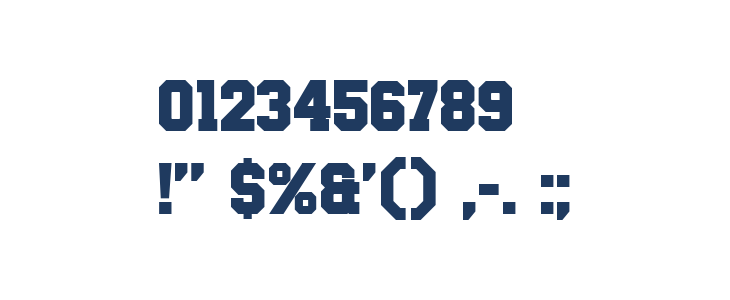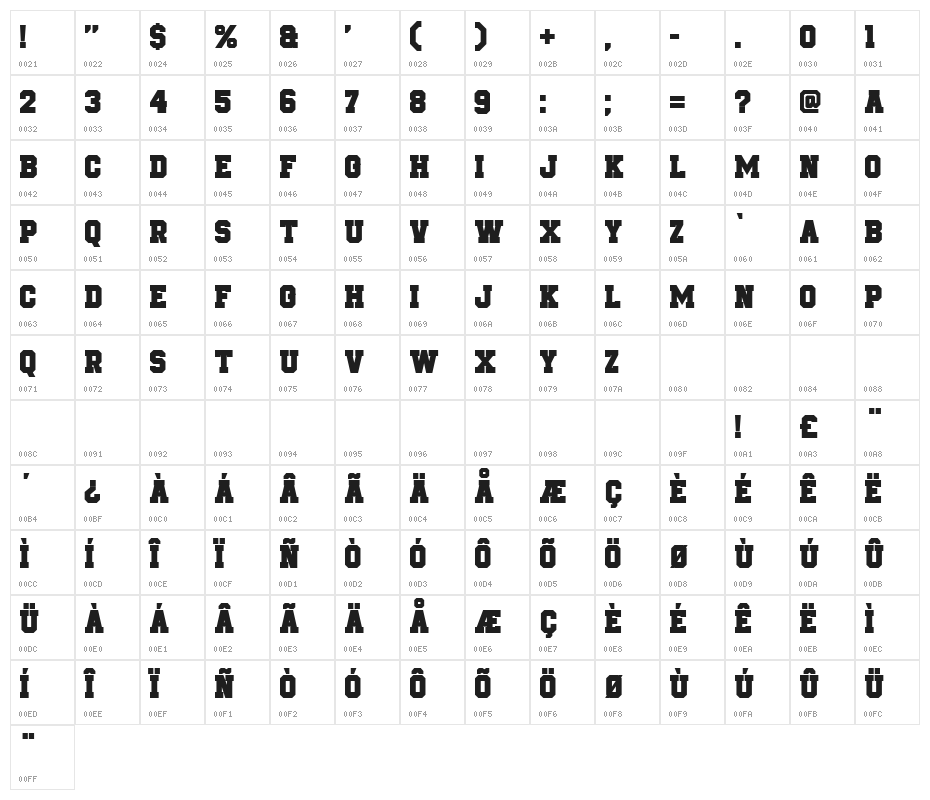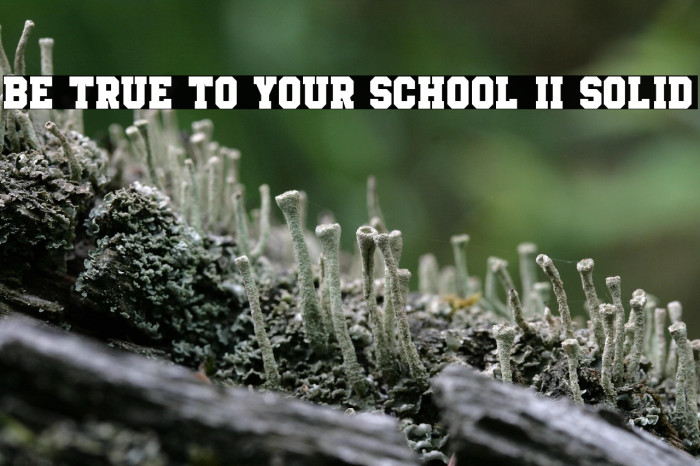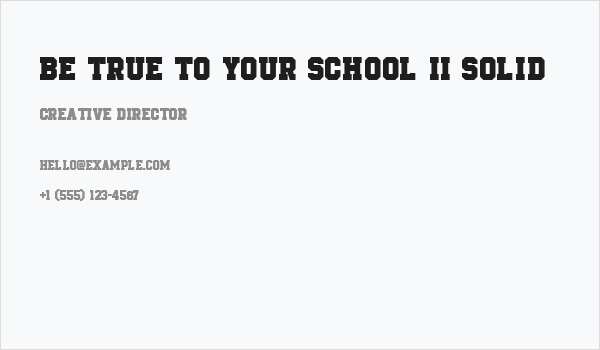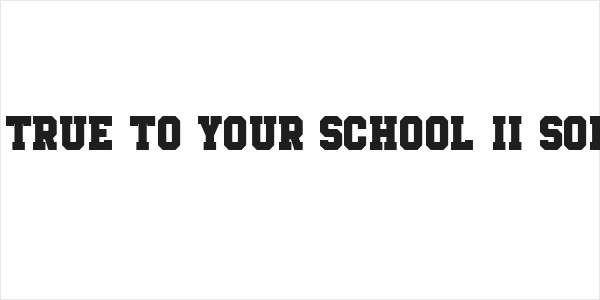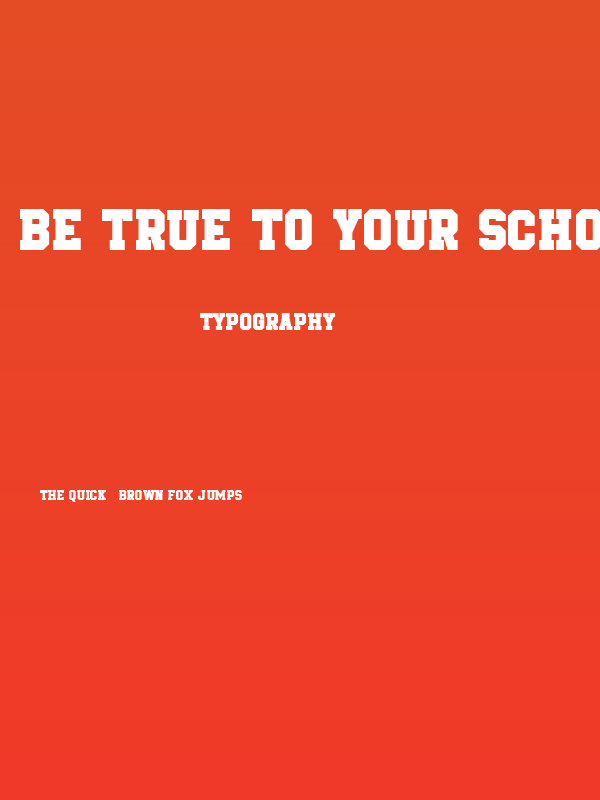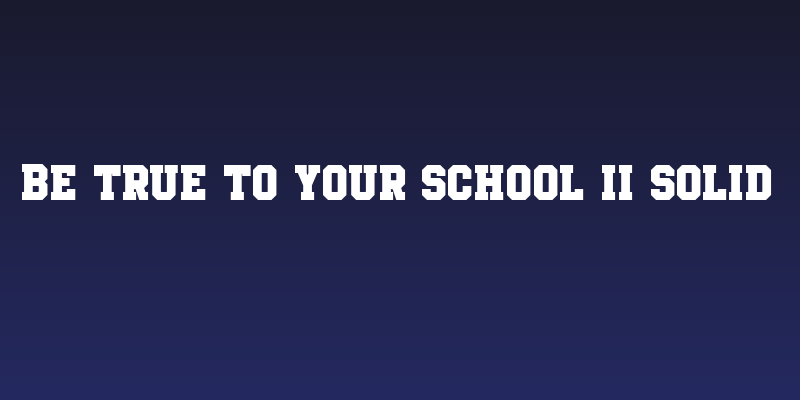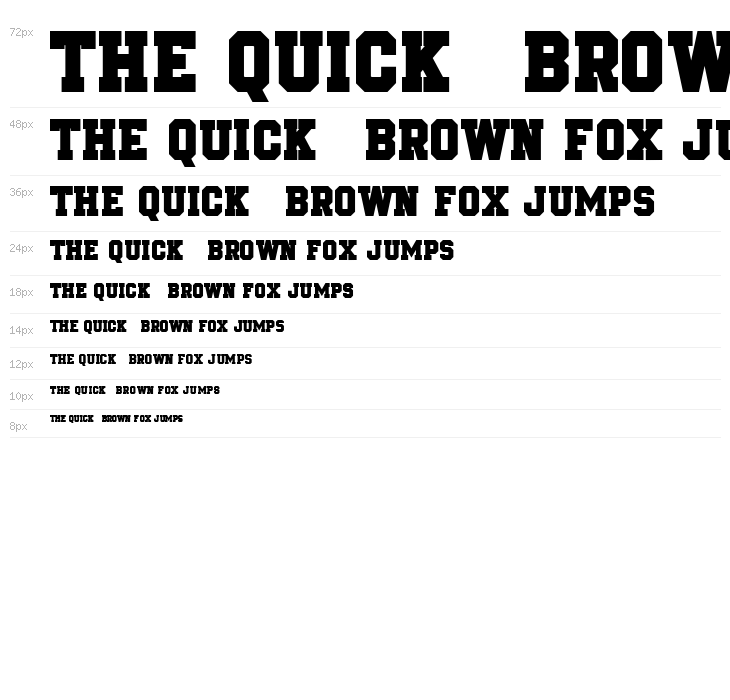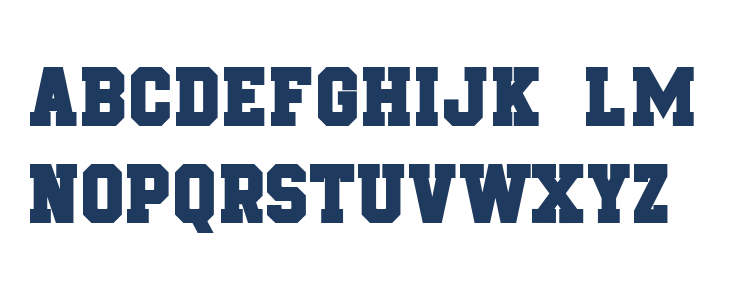
Be True To Your School II Solid Font
Be True To Your School II Solid Description
This font features a bold, blocky style with strong geometric shapes and a solid presence. The characters are uniformly thick, giving them a robust and impactful appearance. The uppercase letters are particularly striking, with sharp angles and a consistent height that conveys a sense of strength and stability. The numerals and special characters maintain this bold aesthetic, ensuring a cohesive look across all glyphs. This font is reminiscent of traditional collegiate or sports team lettering, often used to evoke a sense of tradition and authority.